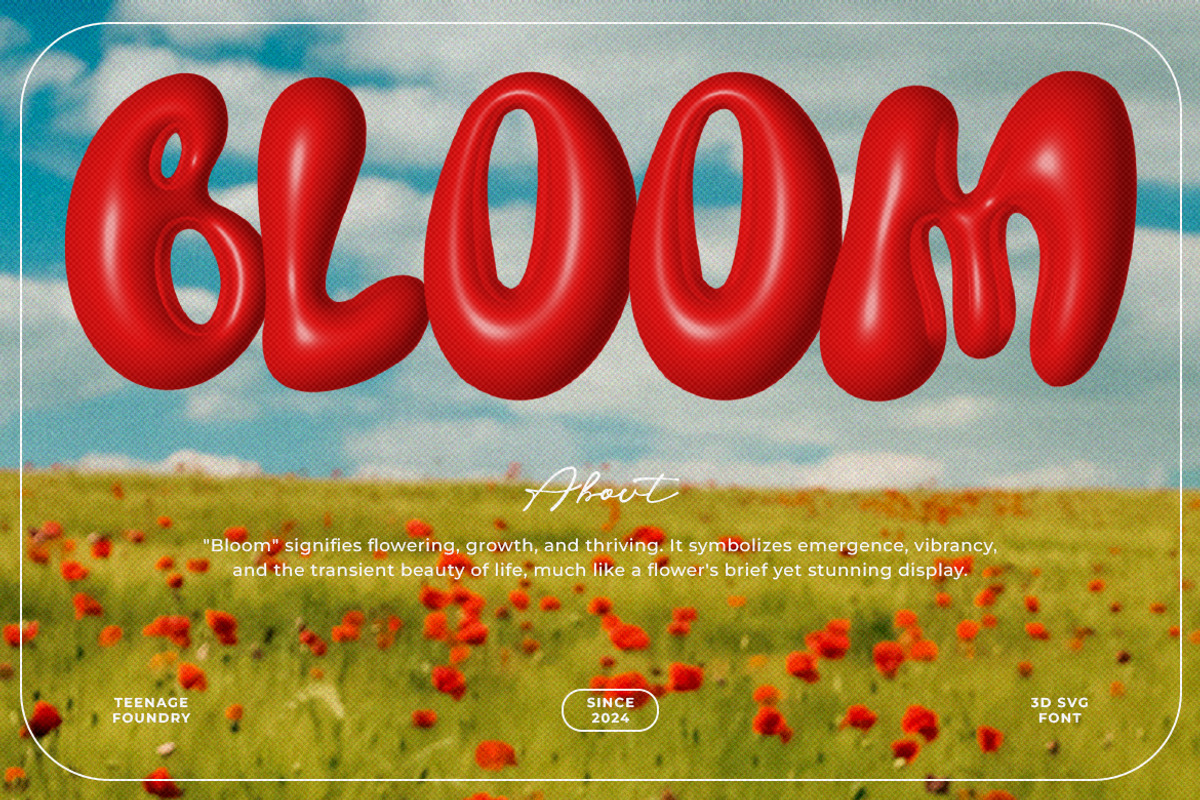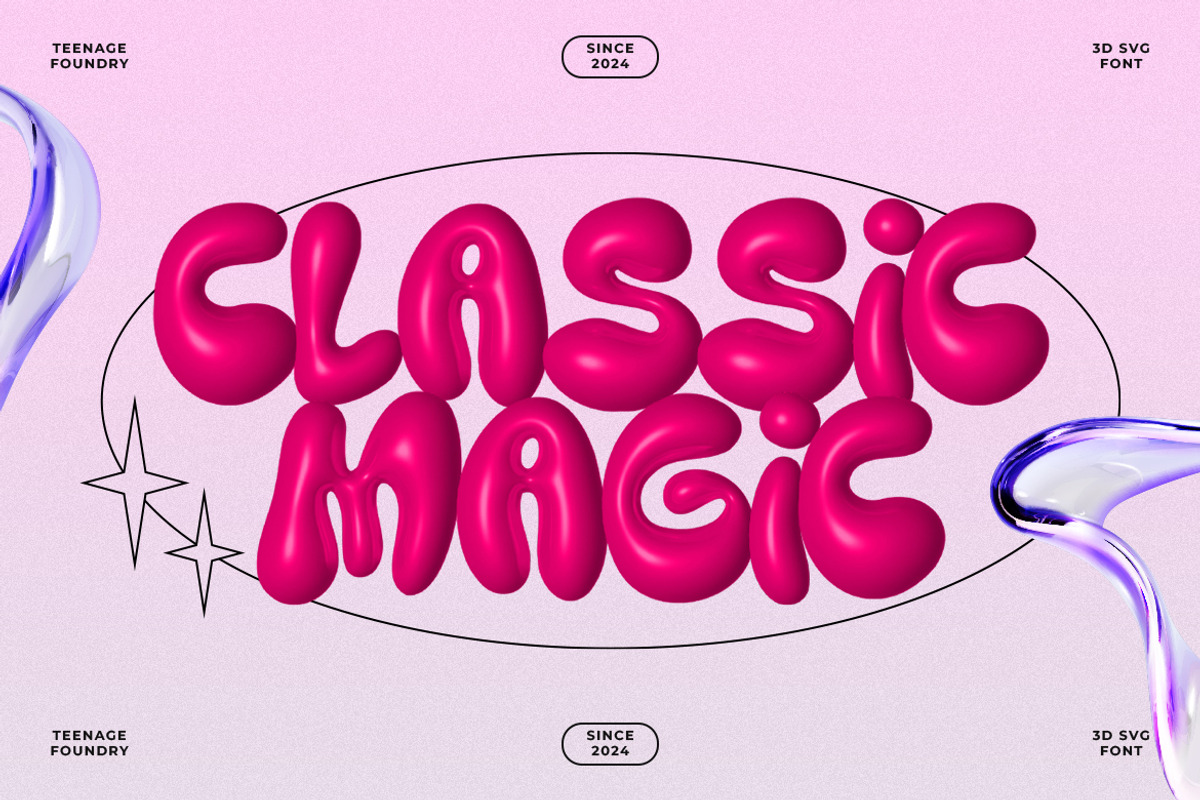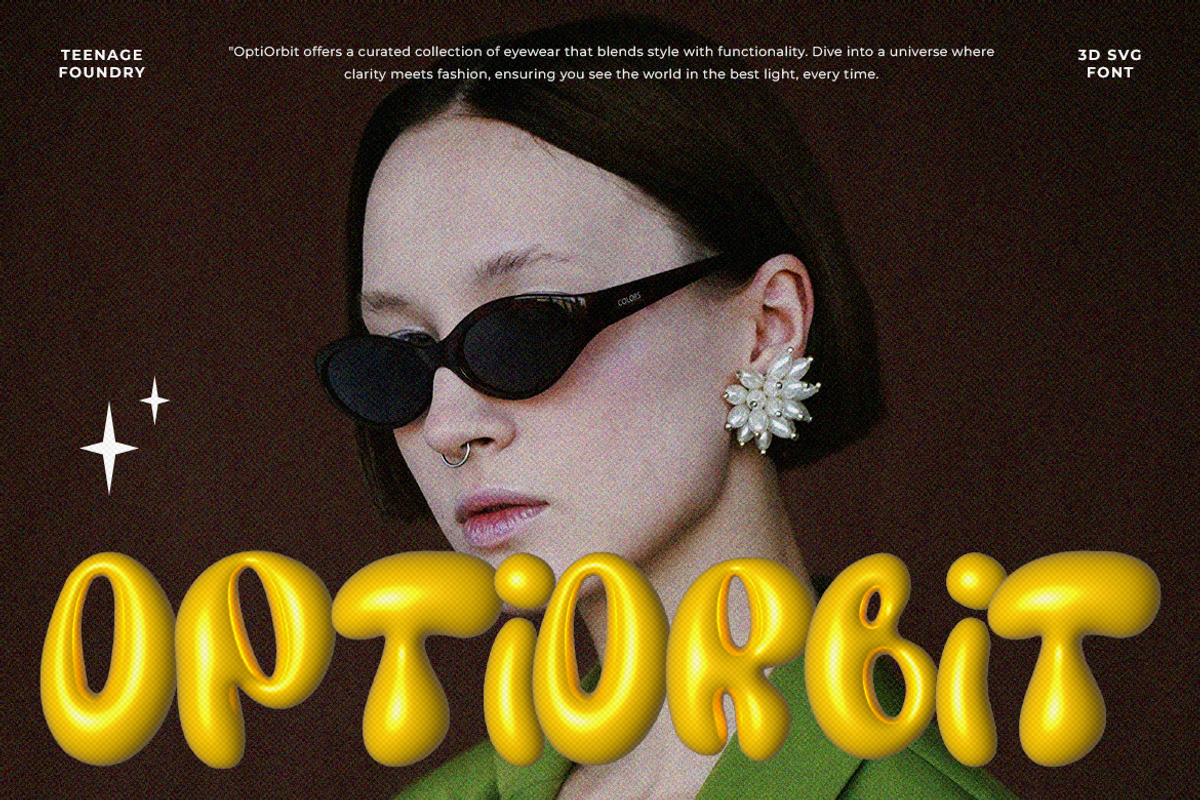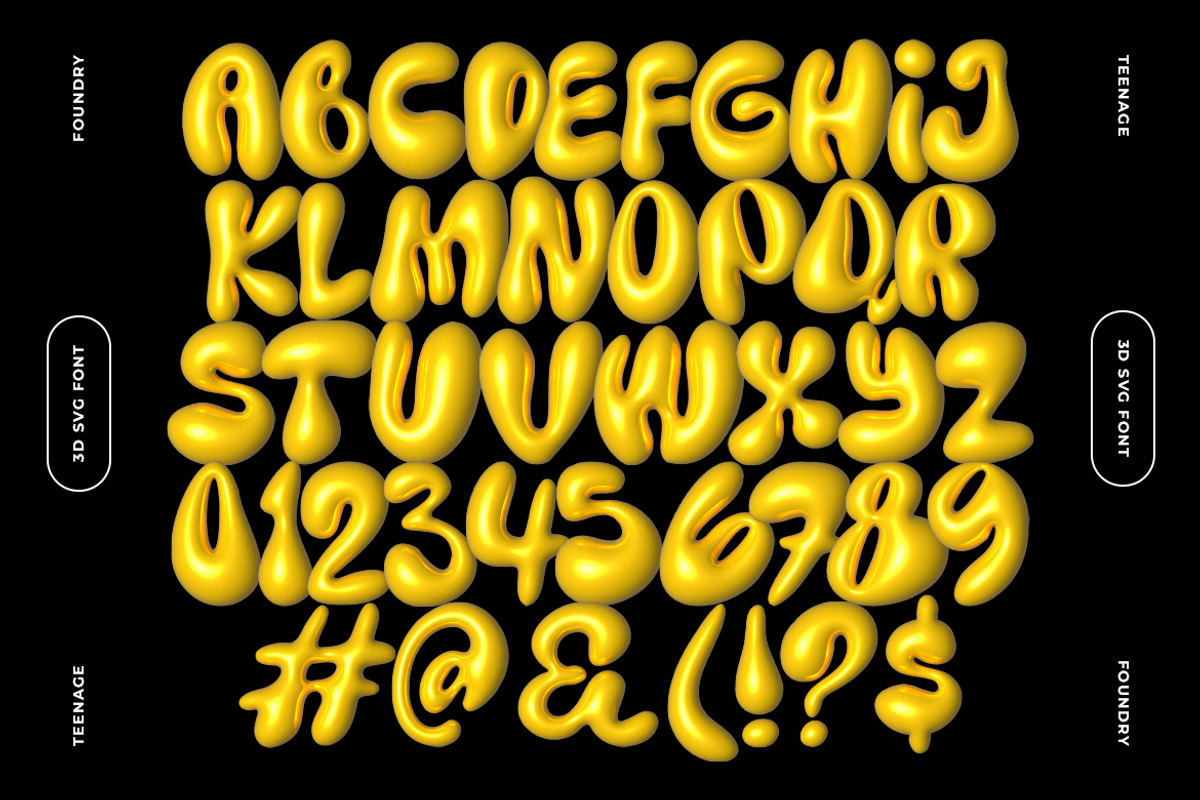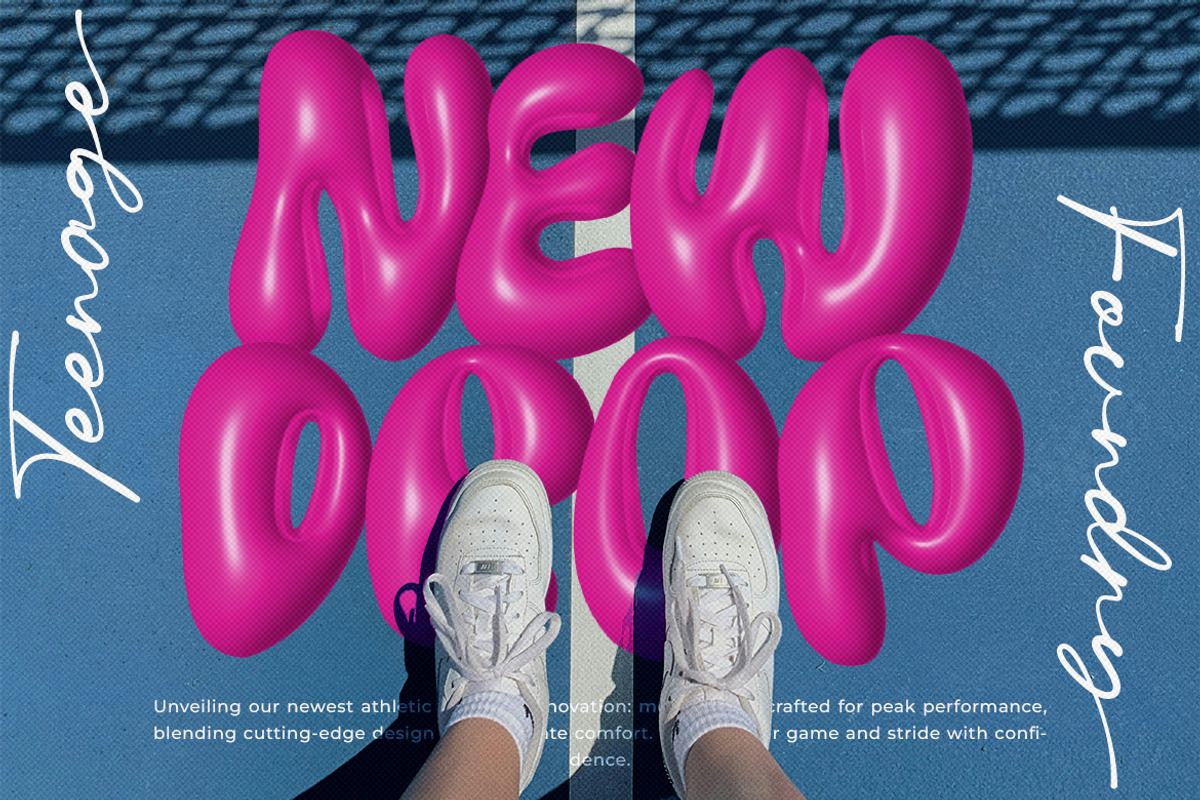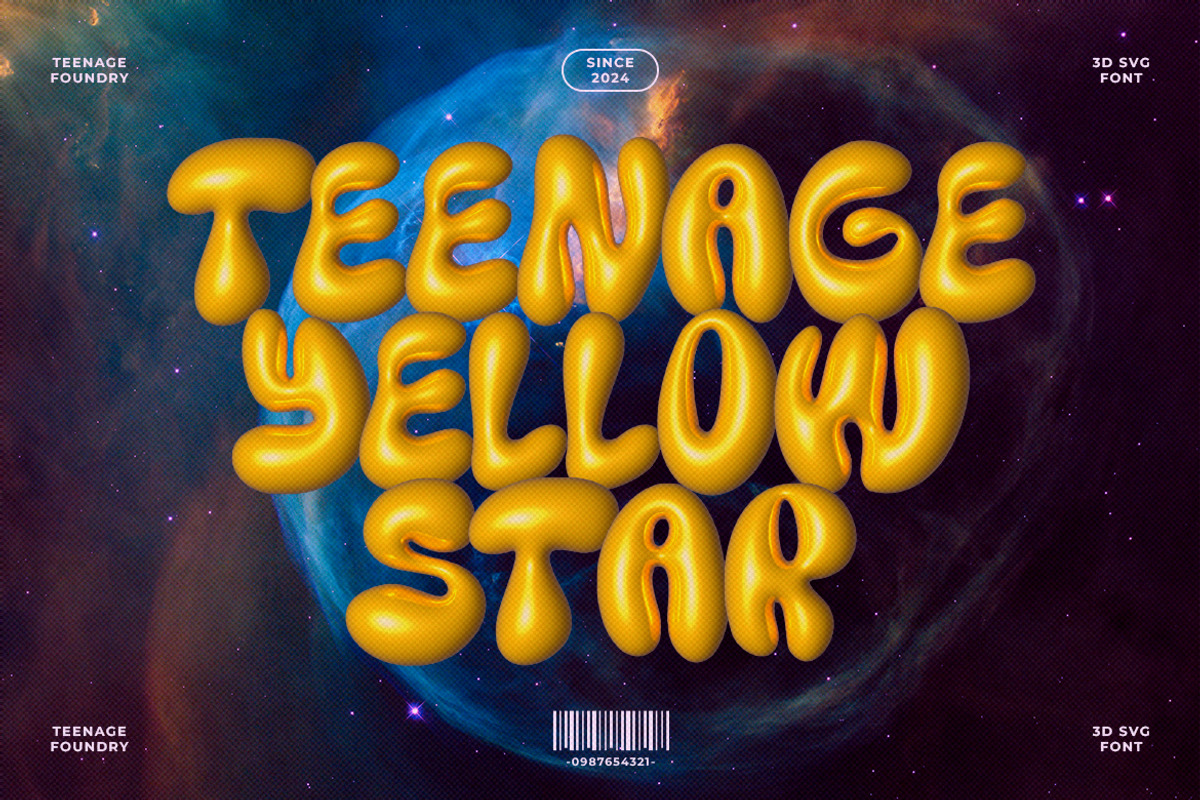
Teenage Yellow Star – 3D SVG Font
Teenage Yellow Star – 3D SVG Font By Teenage Foundry
It is perfect for contemporary designs. Great for poster designs, social media posts, logos etc.